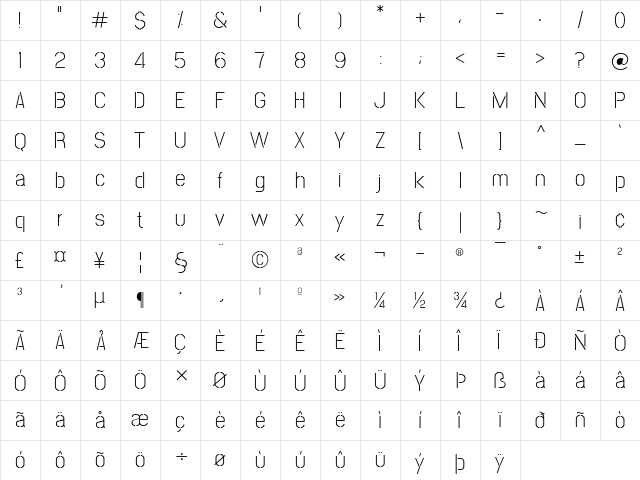
Post No Bills Colombo Light
| Foundry | Mooniak |
| Designer | Kosala Senevirathne, Siva Puranthara, Lasantha Premarathna, Tharique Azeez |
Design Context for Post No Bills Colombo Typeface
Post No Bills Colombo is a composed and adaptable typeface that performs quietly and consistently across a wide range of design contexts. Its slender proportions lend an understated elegance to any composition.